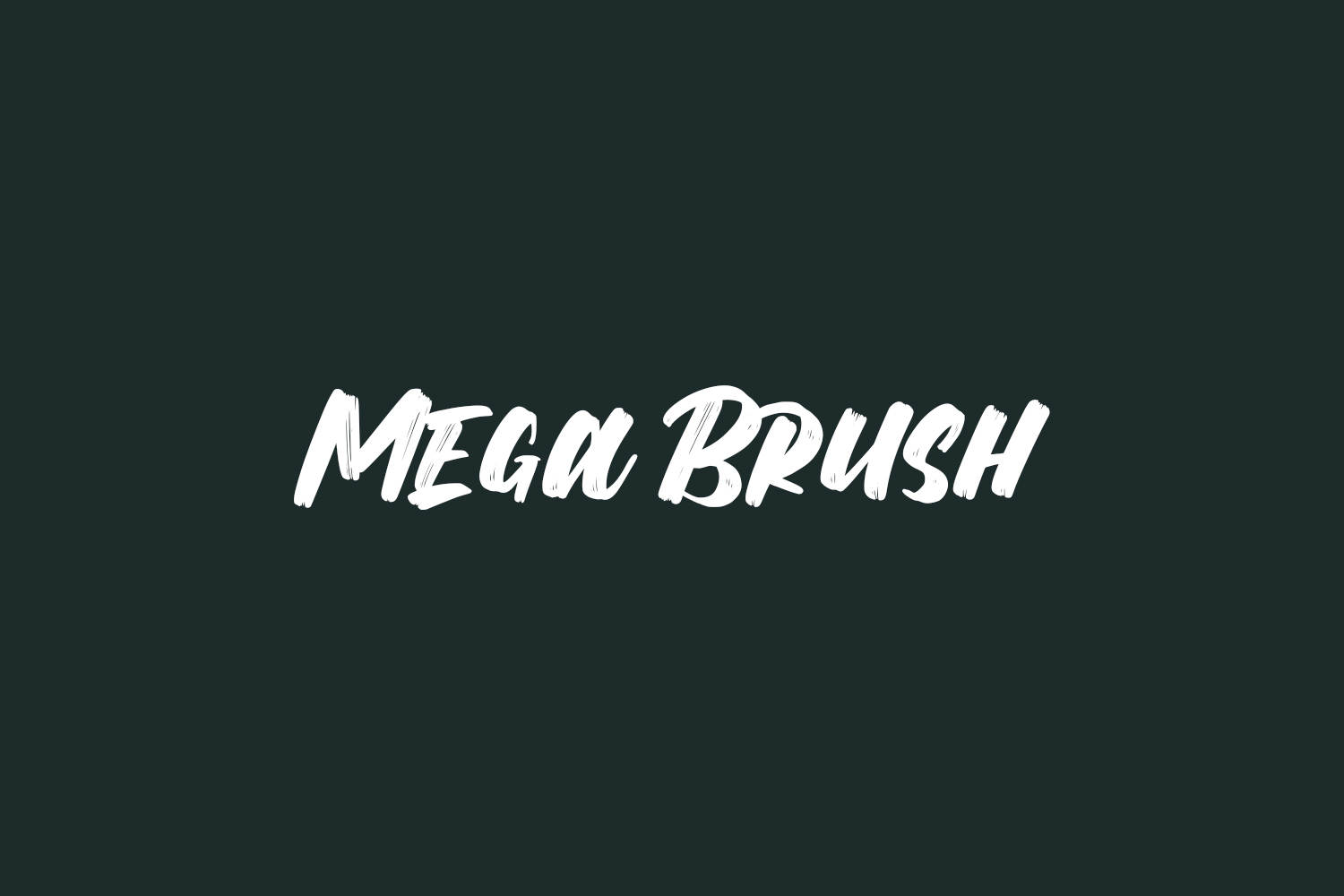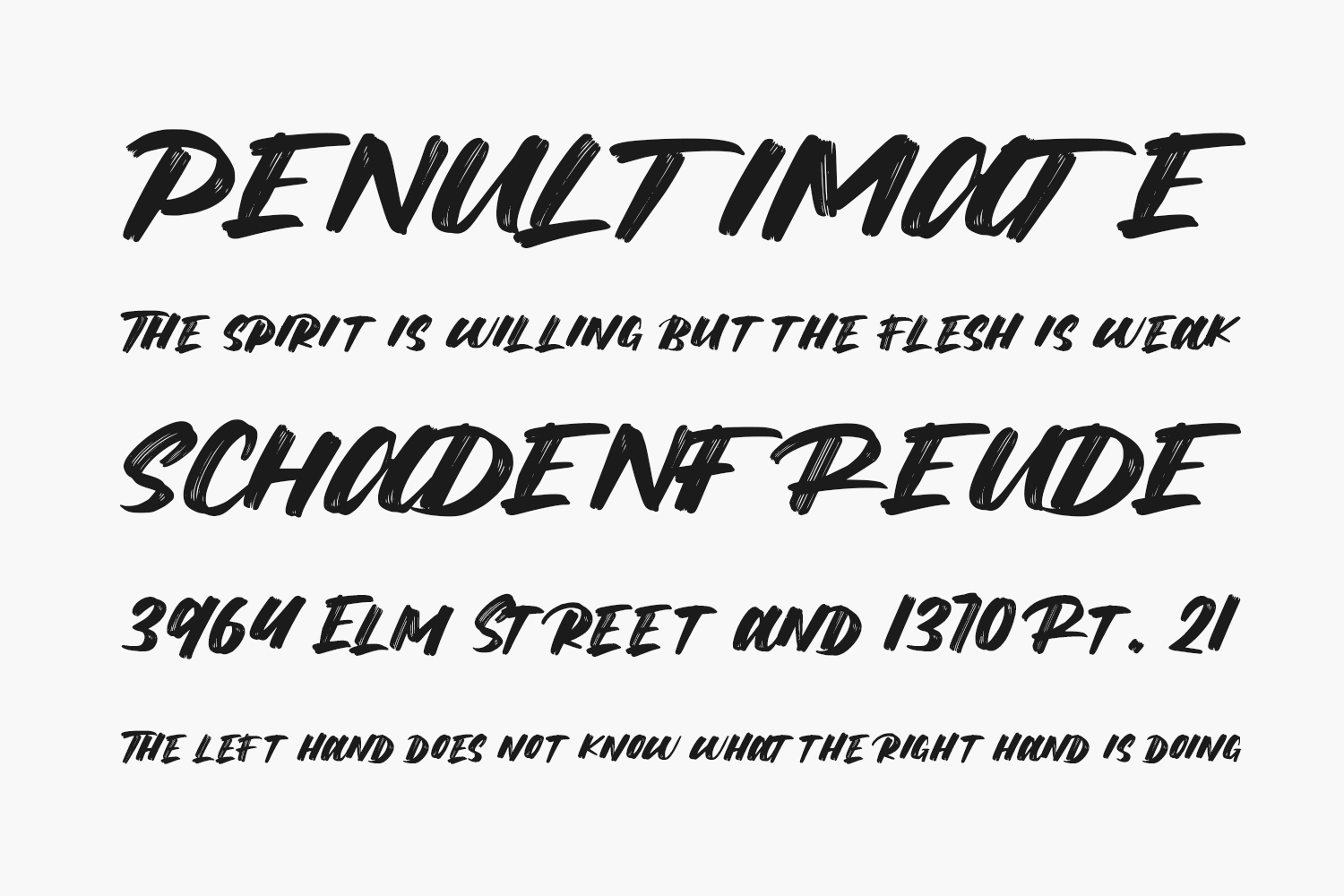
Mega Brush Free Font is is a unique and interesting display font. A little bit quirky, this font looks incredibly adept in a wide variety of contexts. Mega Brush Free Font was designed by FatmaStudio and is free for personal use only. Please purchase the full version for commercial use.